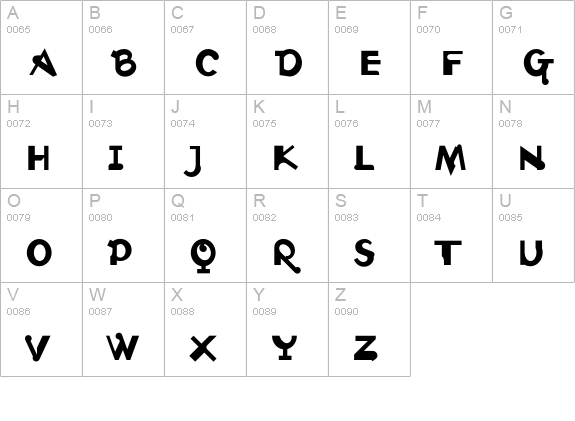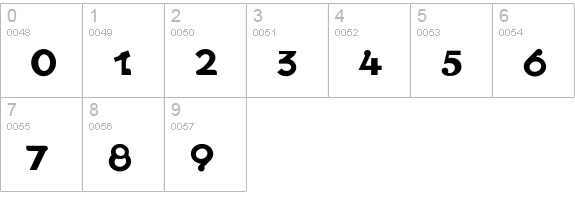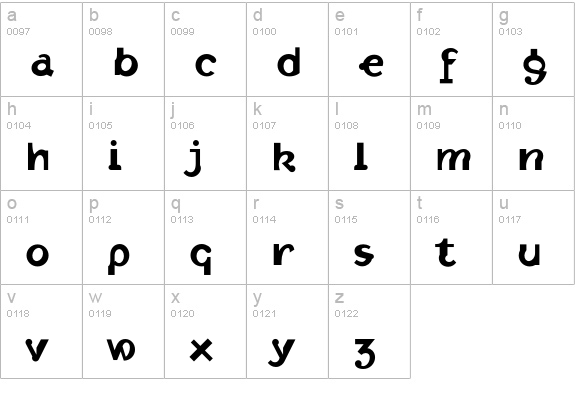
Intolerance Font Details
Introducing Intolerance, a bold and captivating font that demands attention. With its unique design and powerful presence, Intolerance is the perfect choice for making a statement in any creative project. This font exudes confidence and strength, with its sharp edges and strong lines. It is meticulously crafted to convey a sense of boldness and determination, making it ideal for headlines, logos, posters, and branding projects that require a touch of attitude. But what sets Intolerance apart from other fonts is that it is not only visually stunning, but it is also free. Yes, you read that right. Intolerance is freely available to download at FontsMarket.com. So you can now add this exceptional font to your collection without breaking the bank. Whether you're a professional designer or a passionate DIYer, Intolerance will elevate your work to new heights. Its versatility allows it to be used in a variety of design projects, making it a go-to font for those seeking to make a lasting impression. So why wait? Download Intolerance today and unleash its power in your designs. With its striking appearance and the convenience of being freely accessible, this font is a must-have for any creative soul. Don't miss out on the opportunity to make a statement with Intolerance.